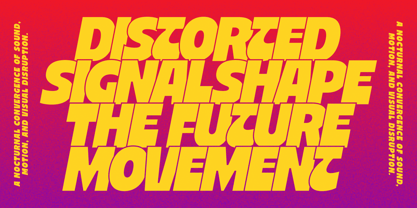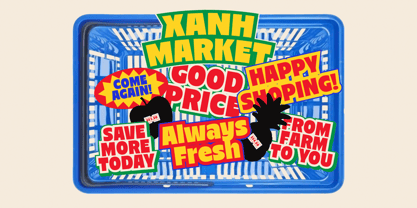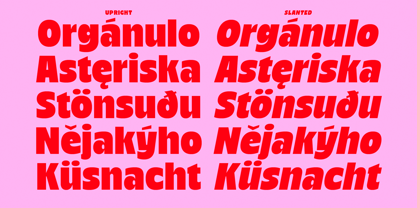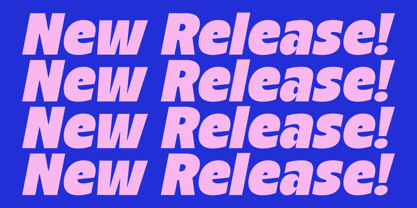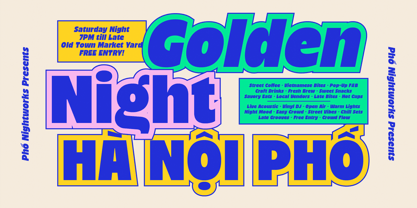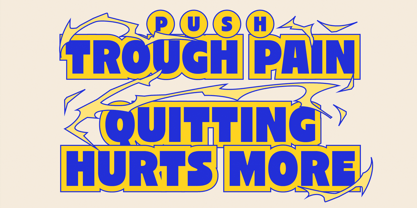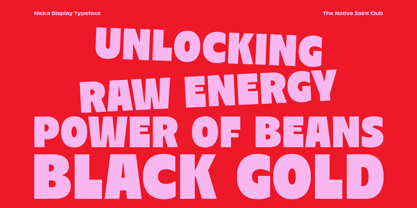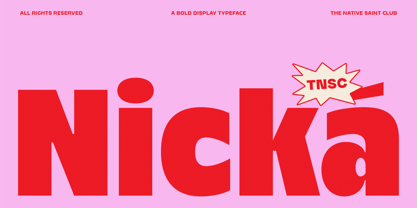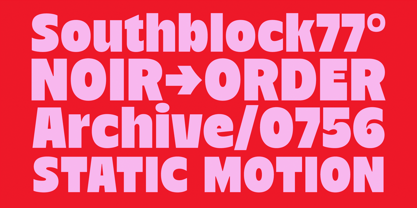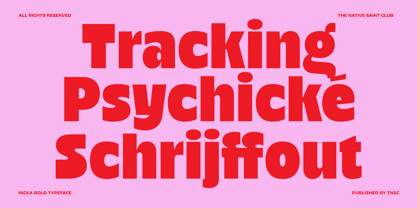
The Nicka Font Family was designed by Bagas Ferdiansah, Septianto Nugroho and published by The Native Saint Club. Nicka contains 2 styles and family package options. More about this family
Nicka is a bold display typeface made to stand out. Strong, confident, and full of character, it’s built for headlines that refuse to be ignored. With its chunky forms and punchy personality. Perfect for posters, streetwear graphics, branding, packaging, social media, and any layout that needs real presence. Available in 2 styles : Upright and Slanted, giving you the flexibility to create contrast, movement, and dynamic compositions while keeping that instant impact and modern visual edge.
Designers: Bagas Ferdiansah, Septianto Nugroho
Foundry: The Native Saint Club
Nicka